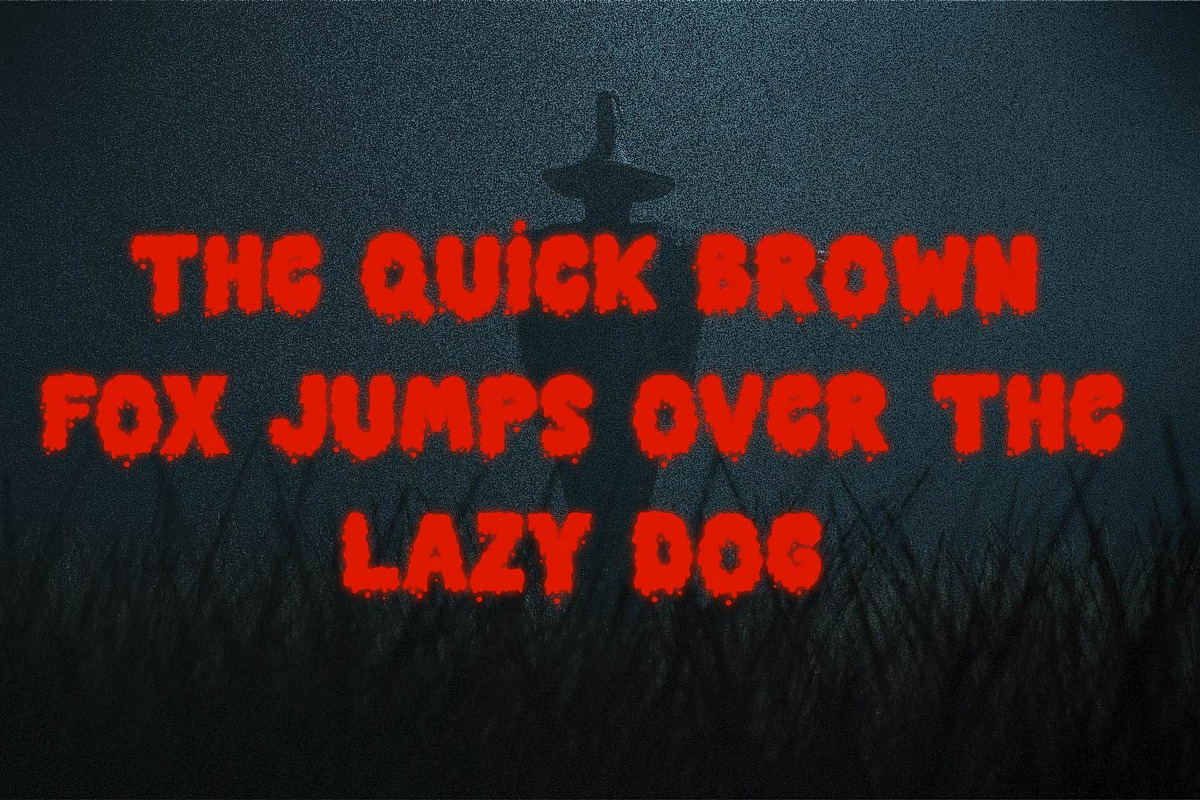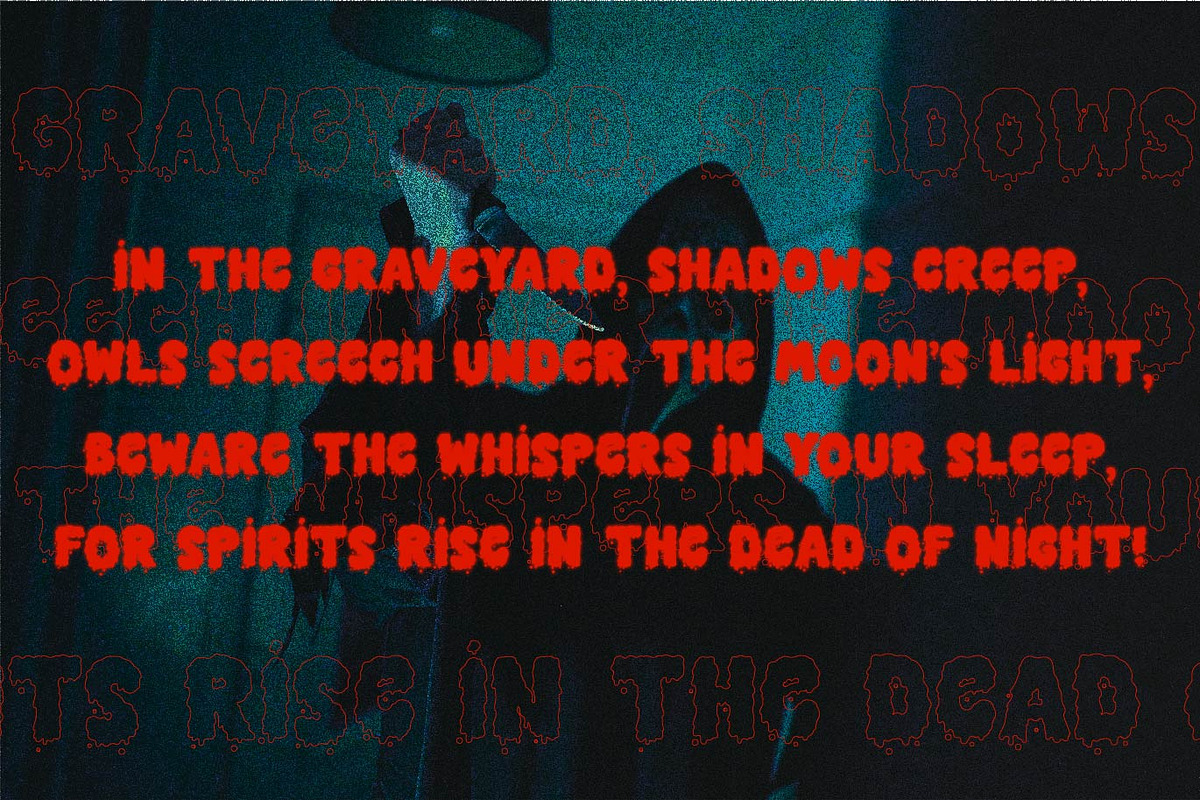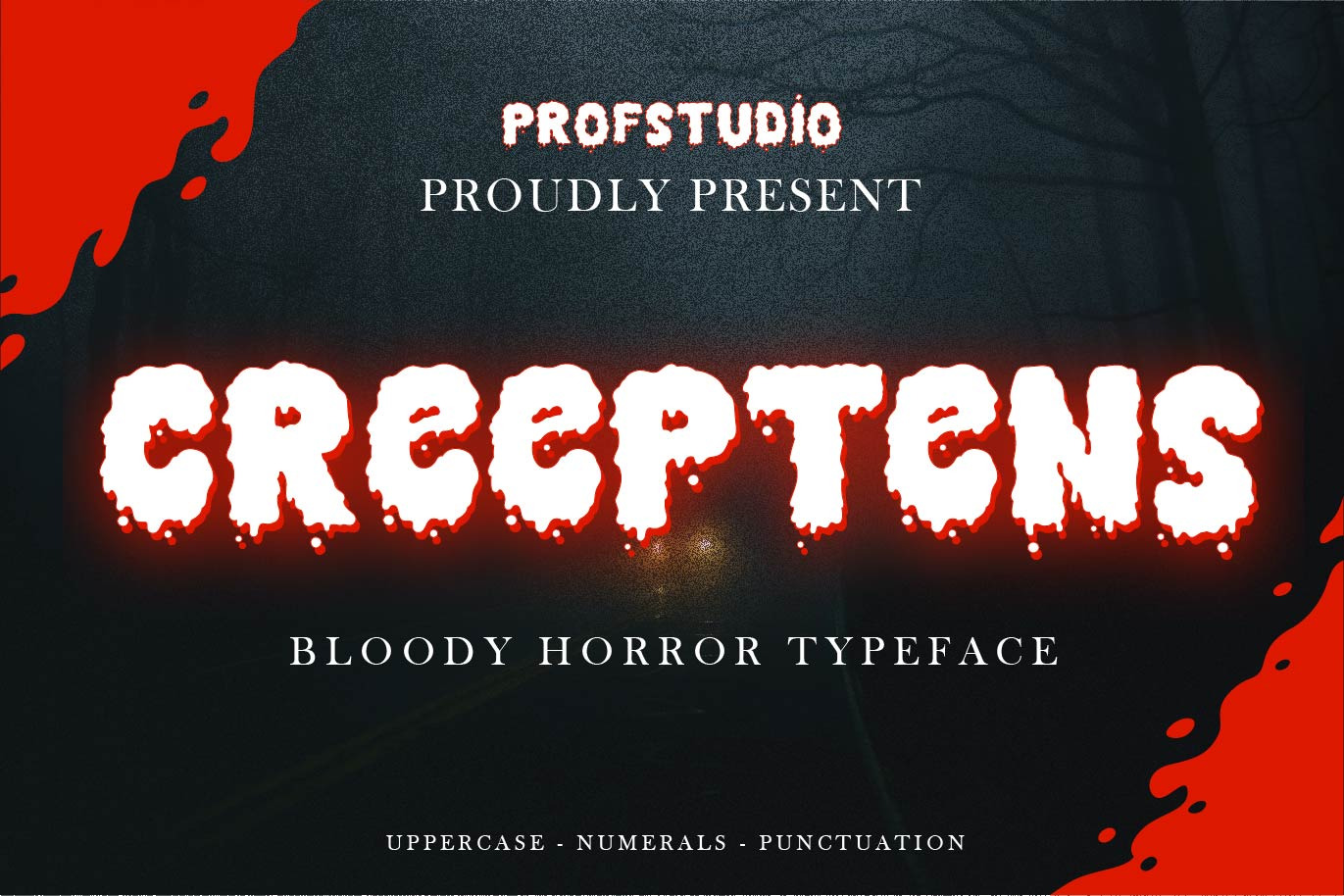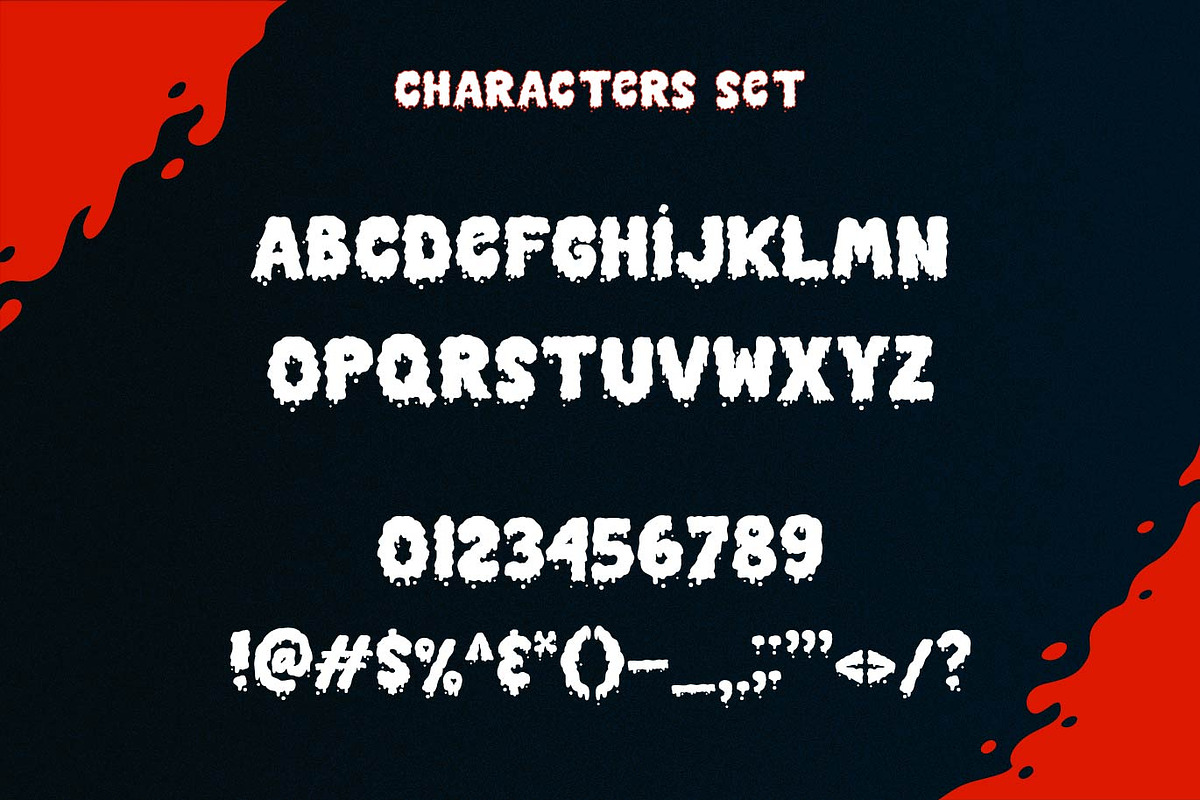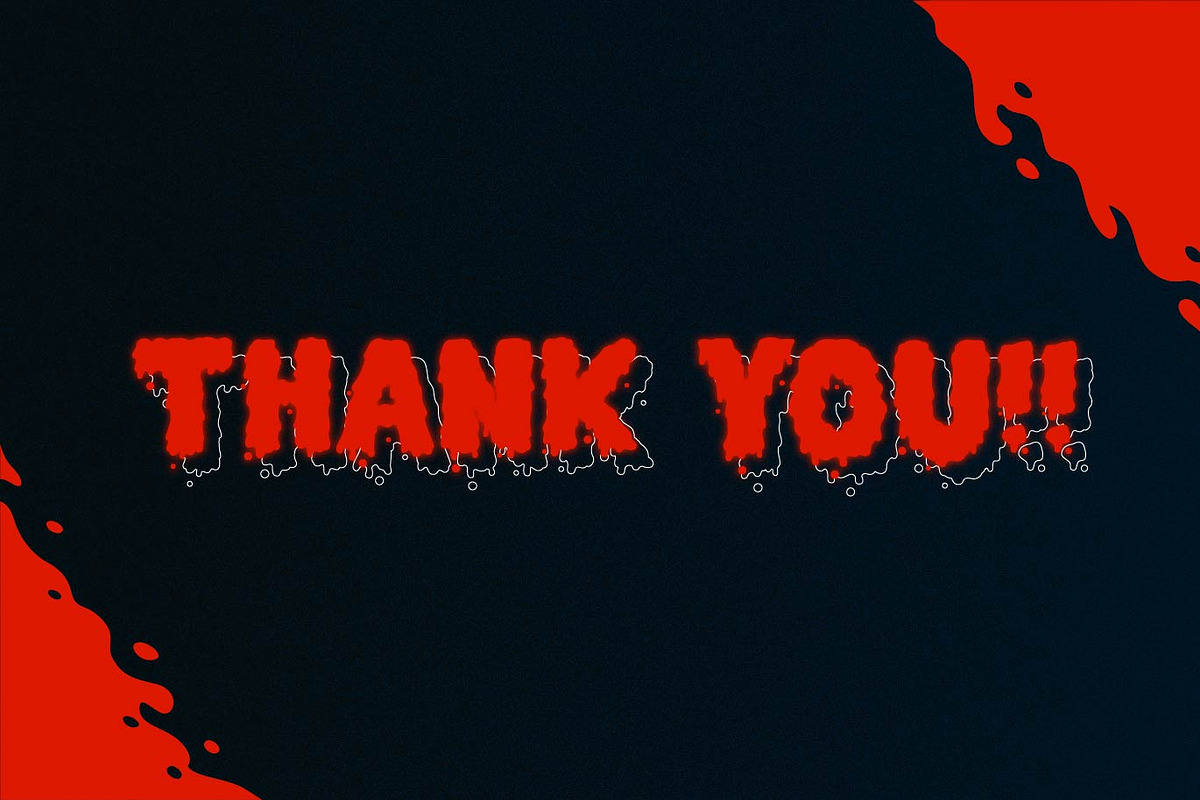
Creeptens - Bloody Night Typeface
**Hi Ladies and Gentleman ! Proudly present Halloween Bloody Horror Typeface “Creeptens” for you business.
Creeptens - Decorative Typeface which can be interpreted professional. we keep this font looks playful, spooky, horror, readable, stylish, catchy and easy to use.
Creeptens - is the great choice for event design ,magazine and many other design project. Creeptens here to make your work to high level!!!